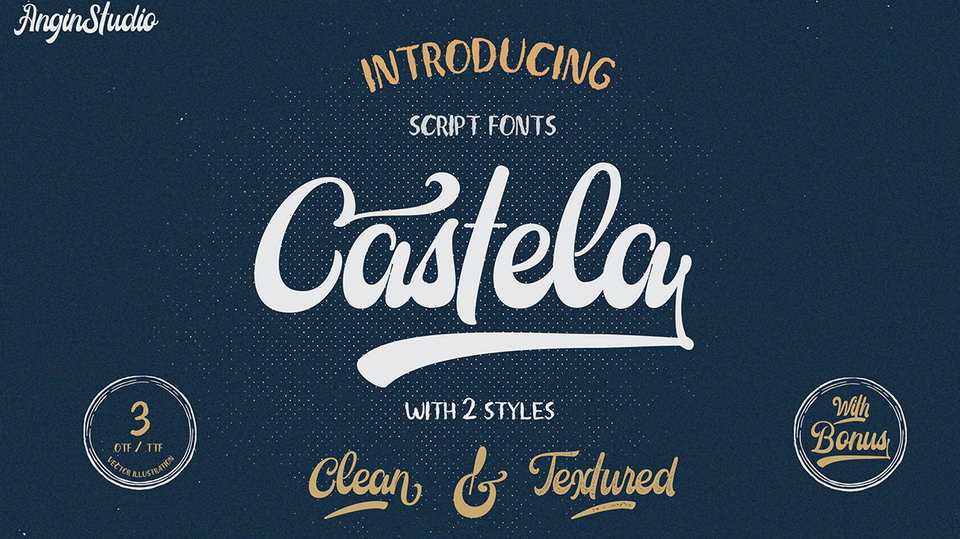
Download Castela – a wonderful script fonts created with a fluffy looks, this fonts inspired by both modern and vintage packaging. Castela is created carefully to have a look that make you fell something.
Designer: Angin Studio